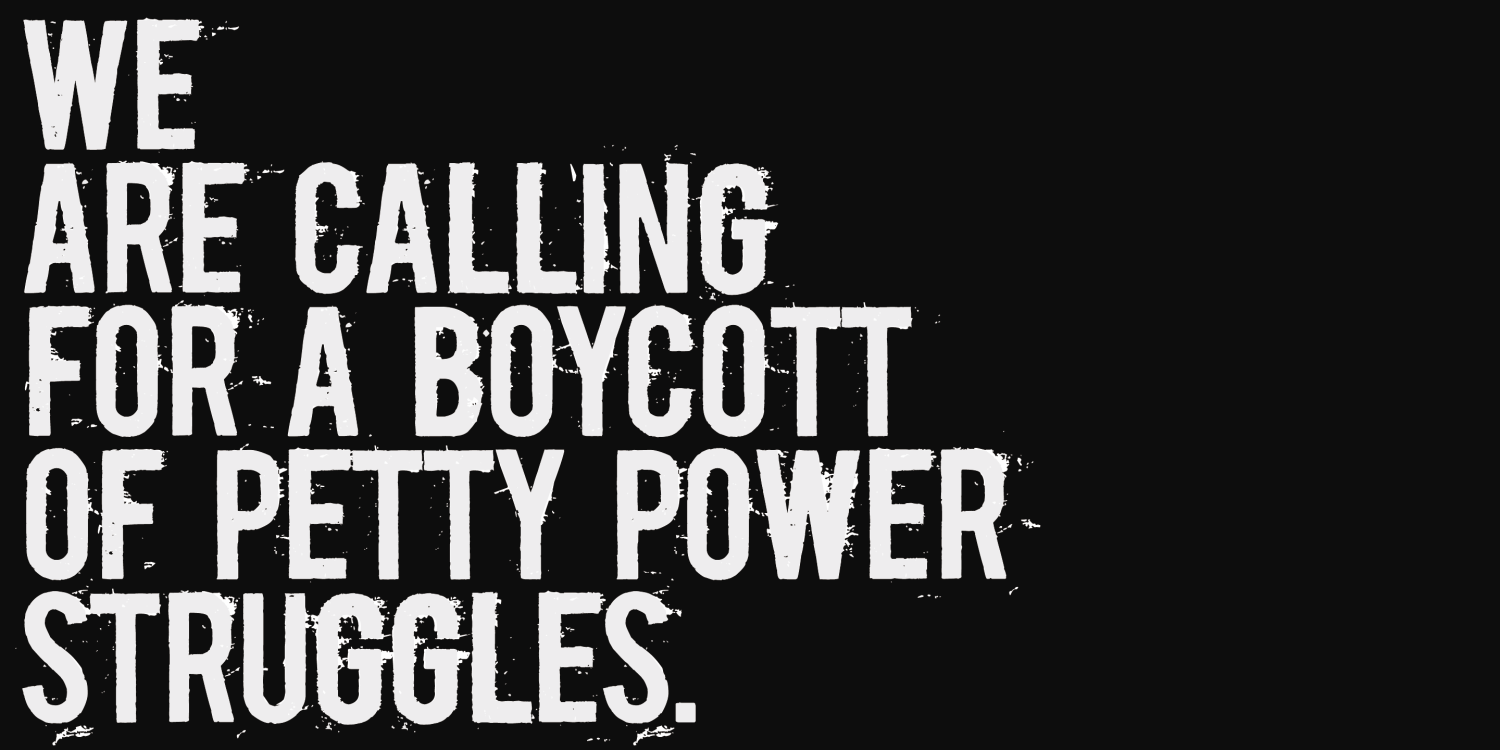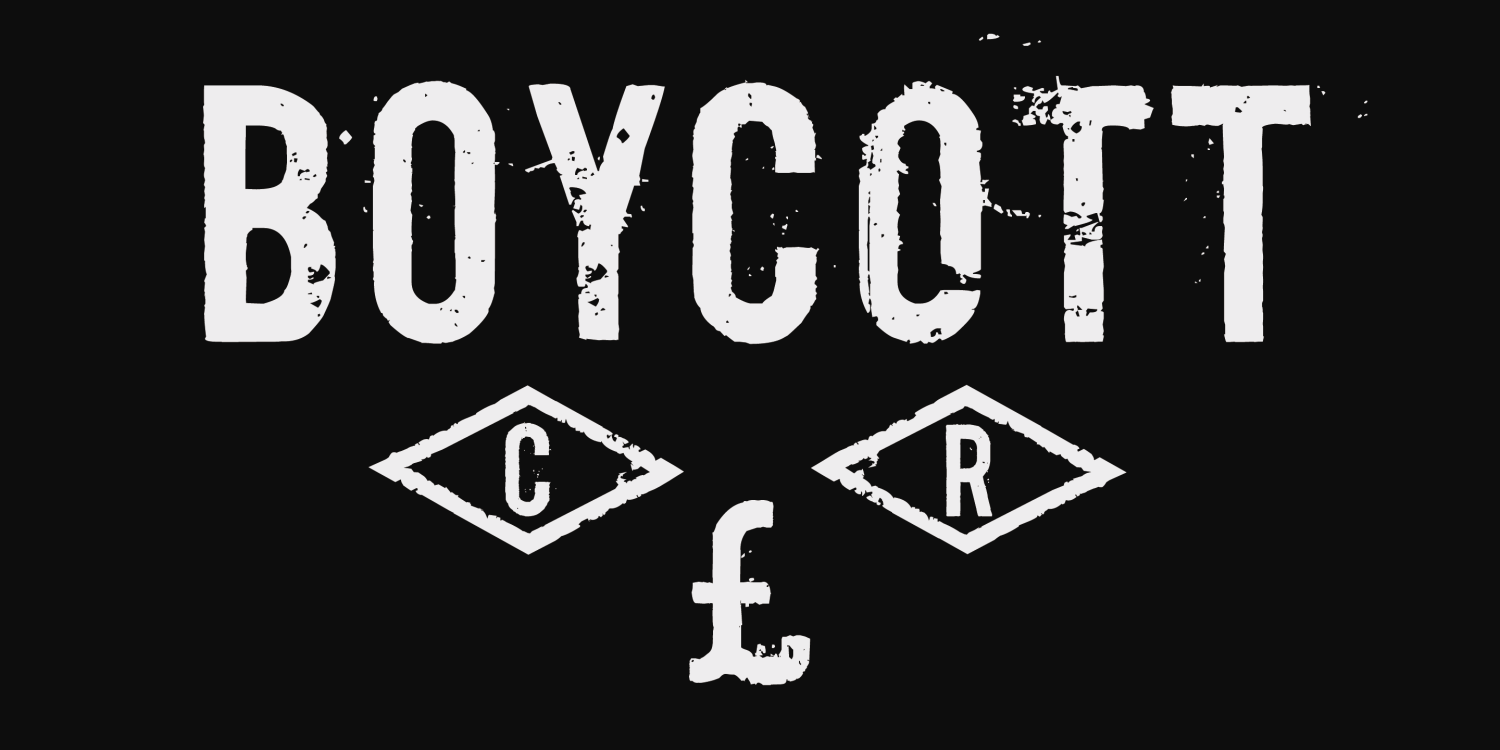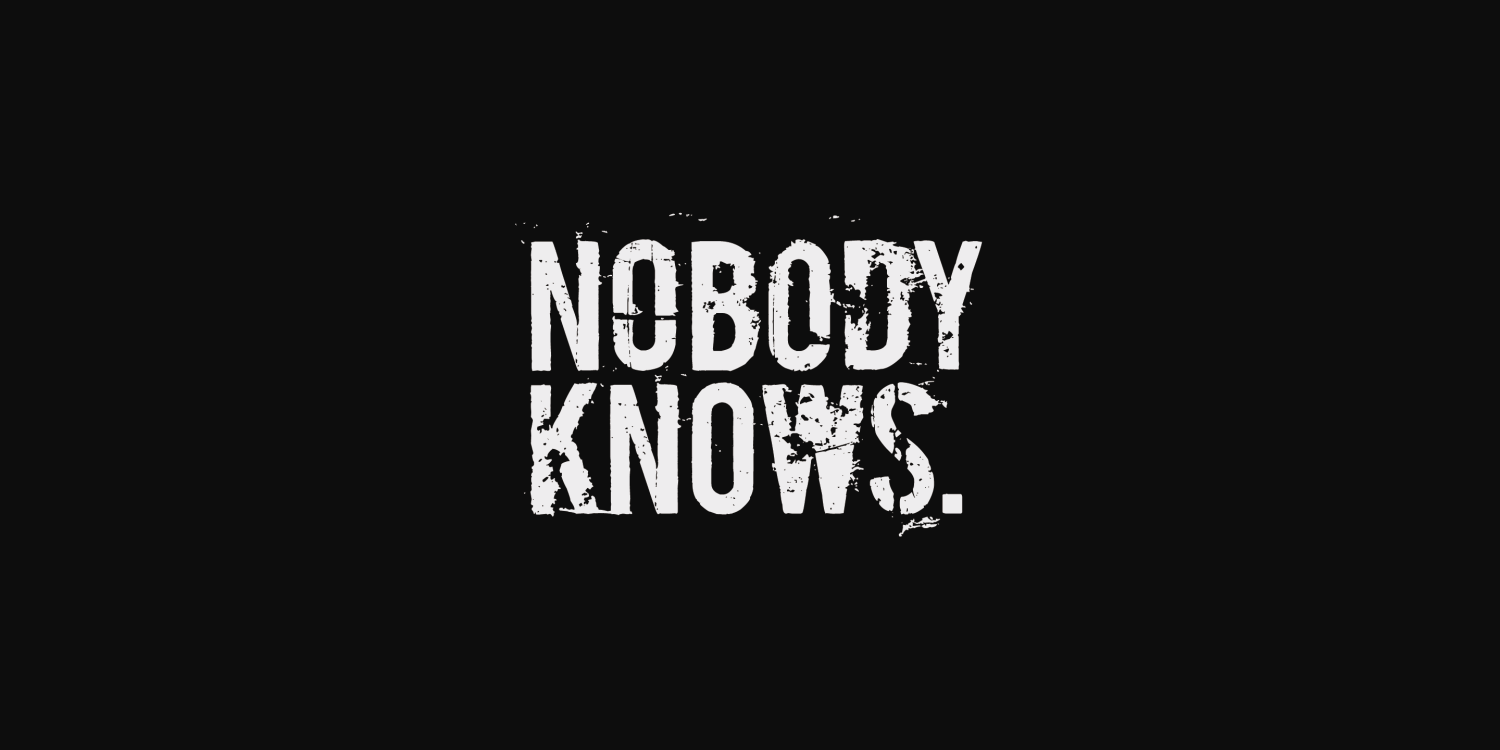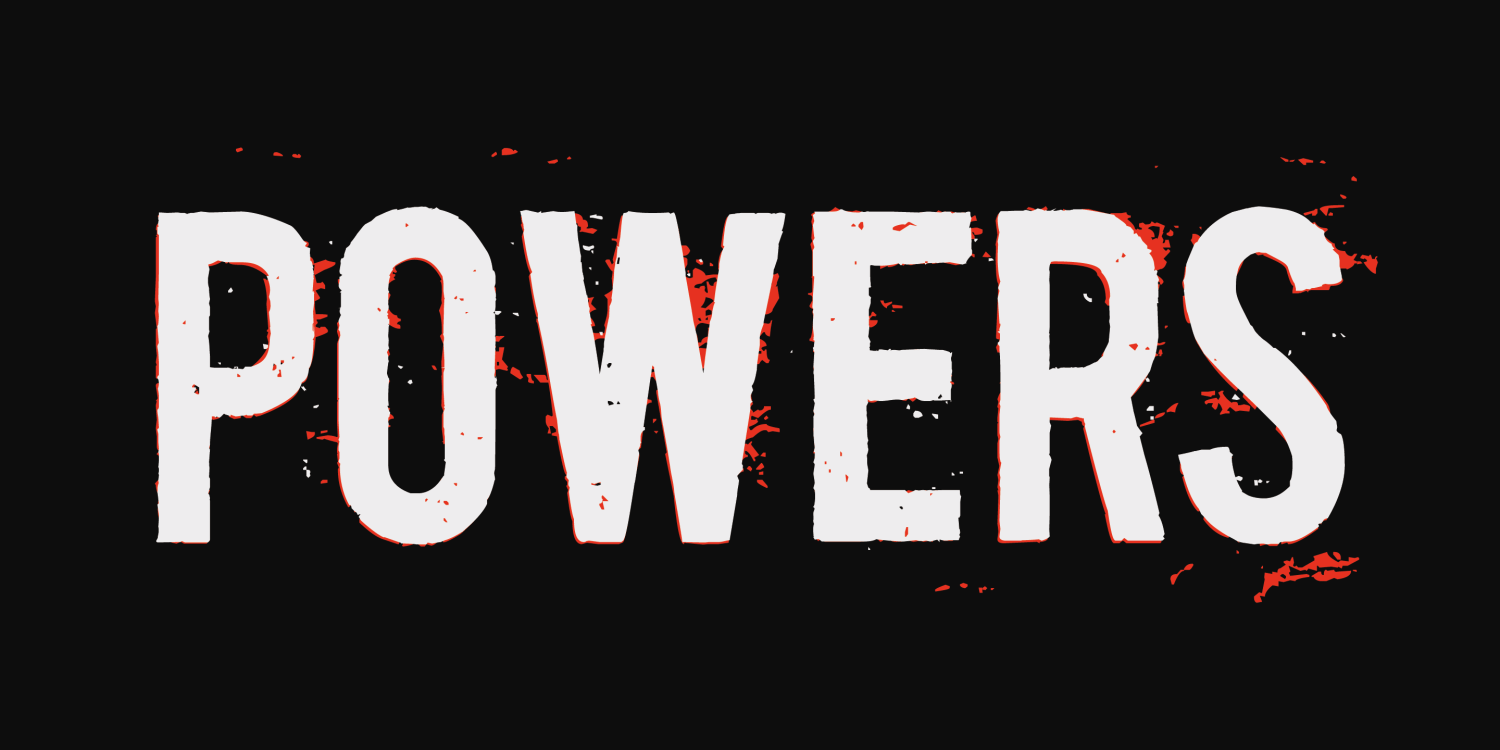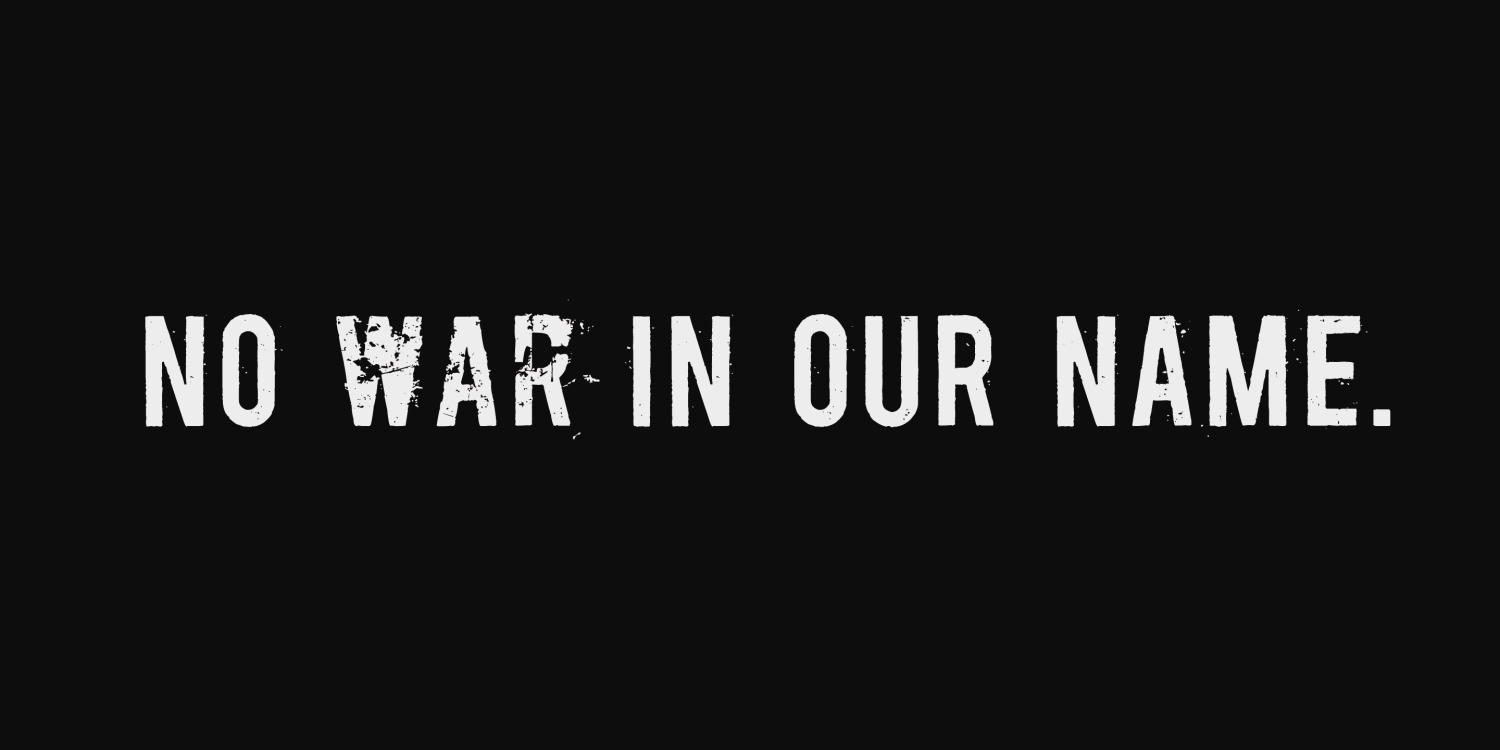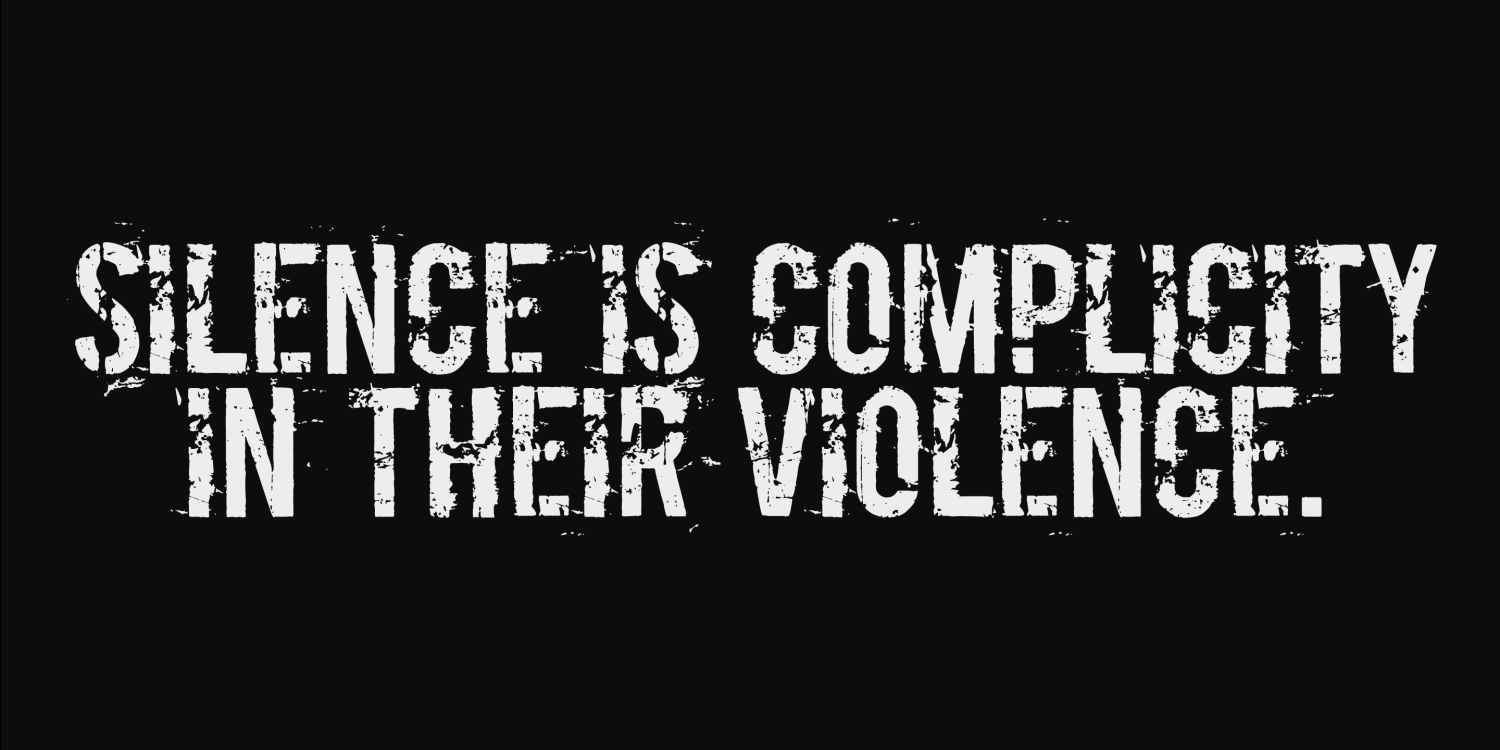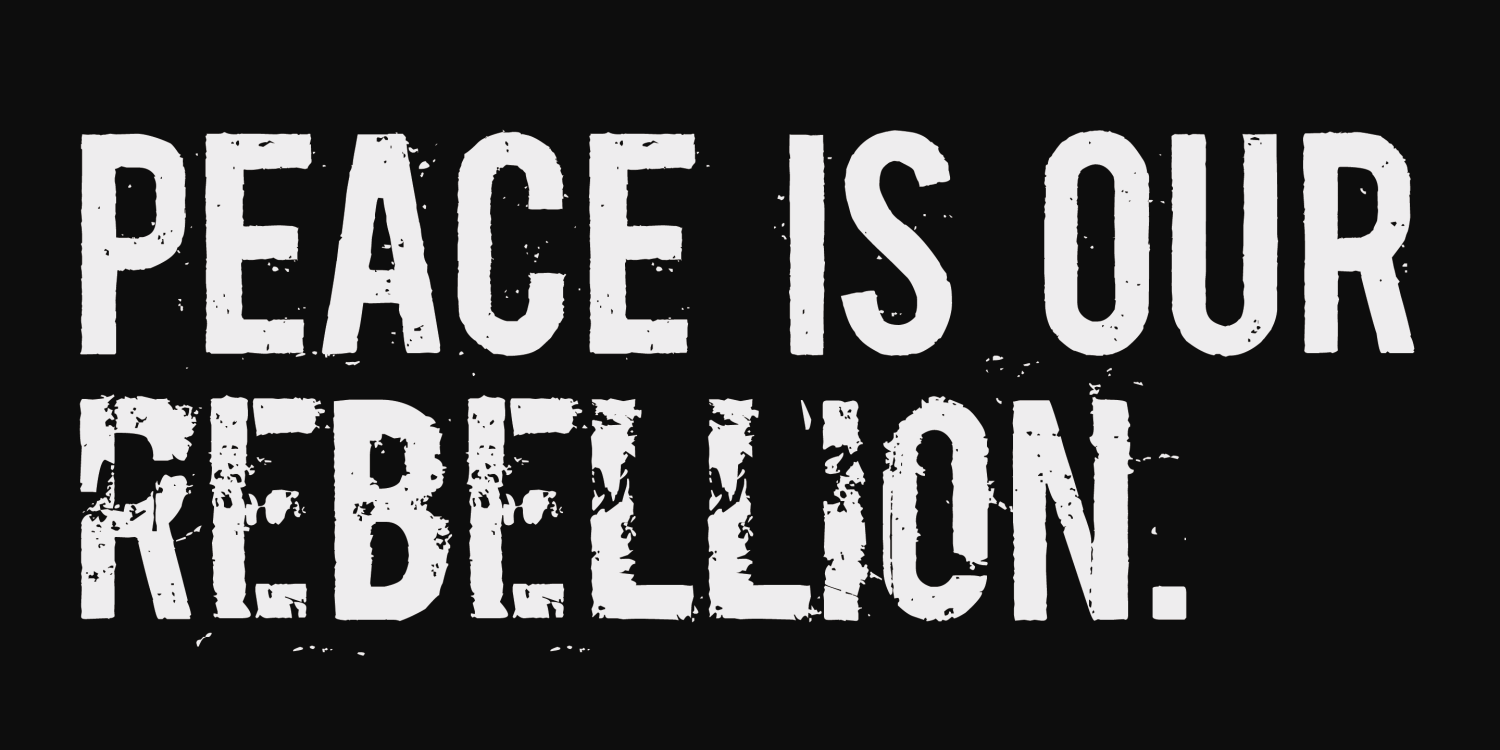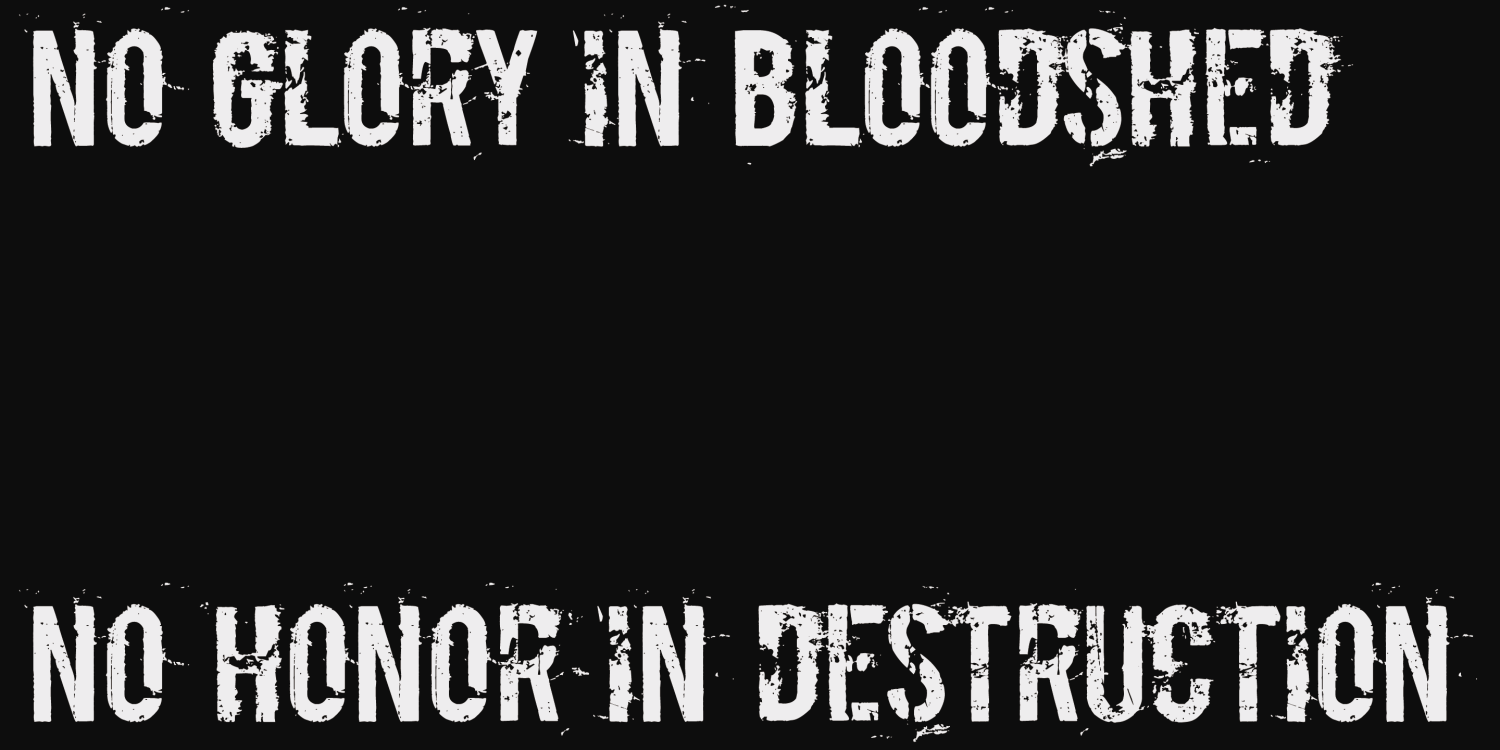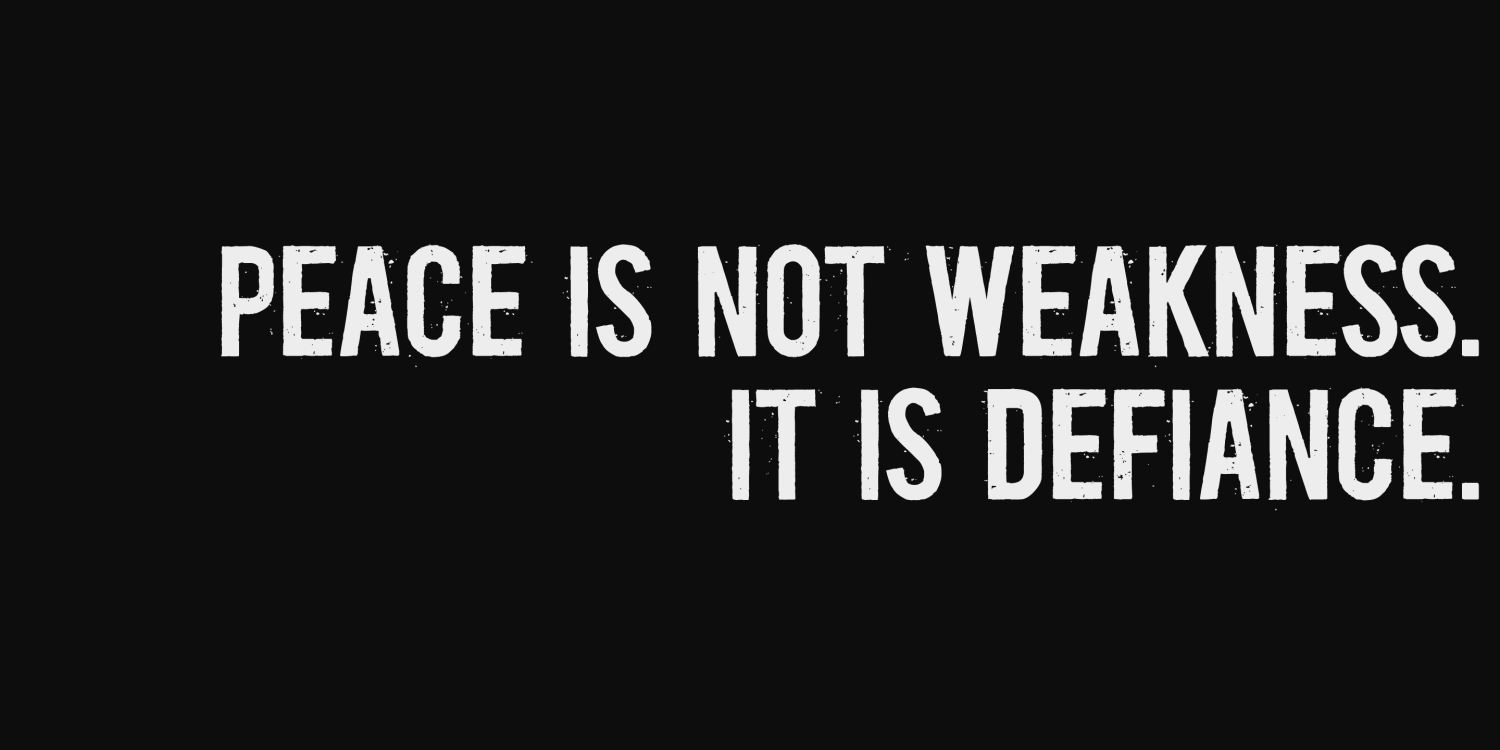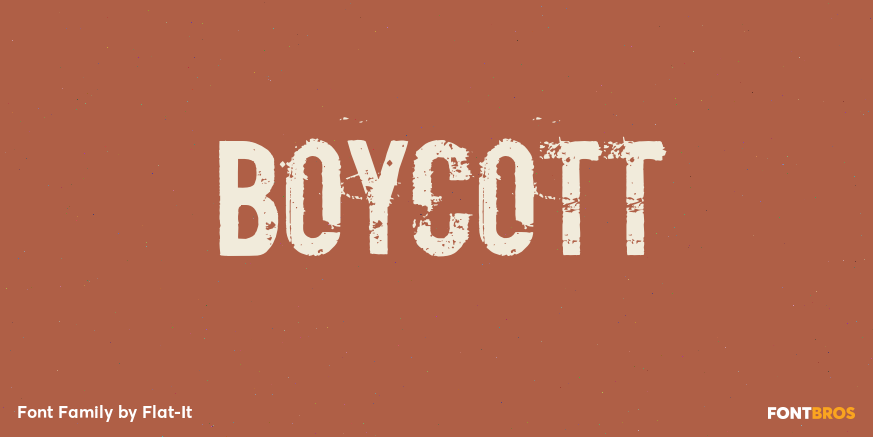
Boycott
Font Family by Dharma Type
This grungy display font earned Second Prize at Best Font 2006 and was named a New Rising Star on MyFonts.
The uppercase and lowercase letters feature subtle variations, adding to its raw and expressive character.
“Boycott’s a noisy design—a little rough around the edges, but just the way we like our big grunge fonts. Boycott is a perfect design for posters and large headlines.”